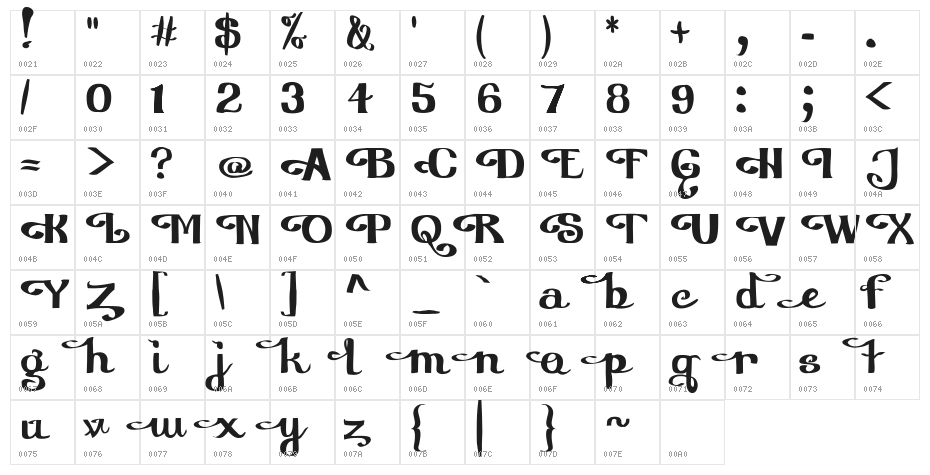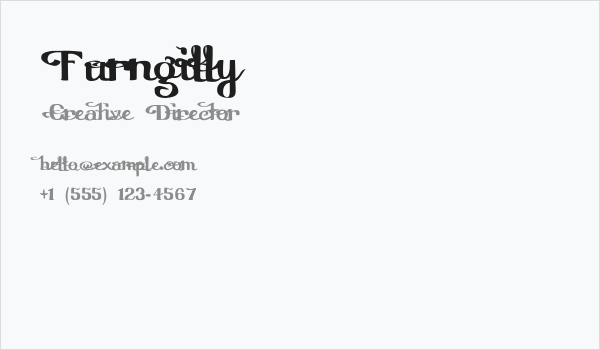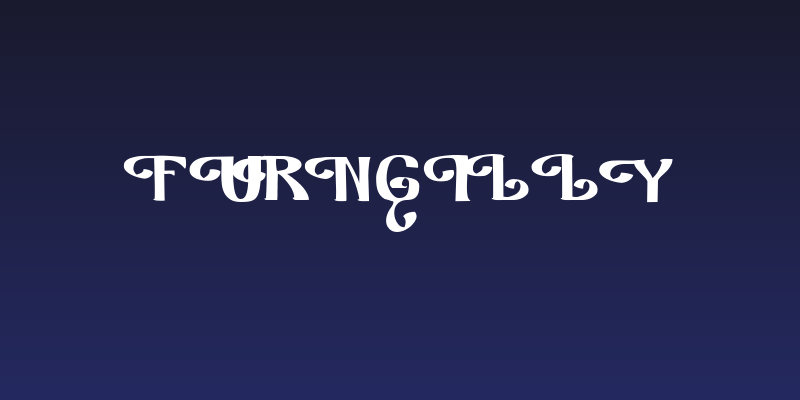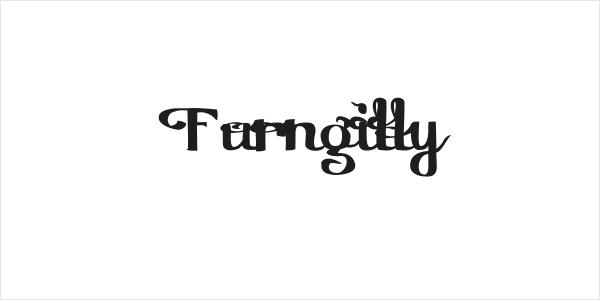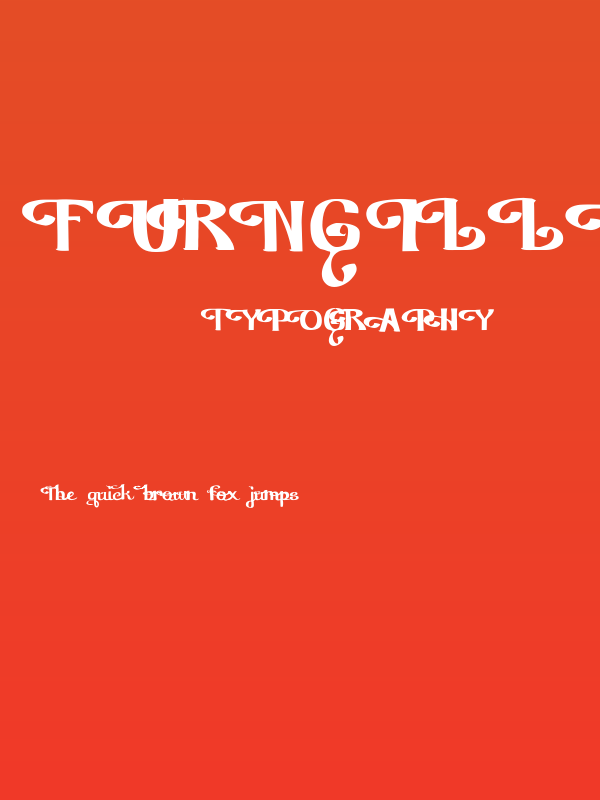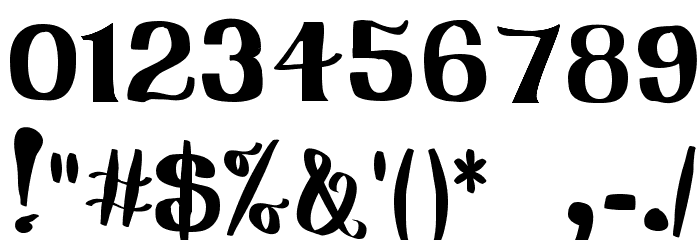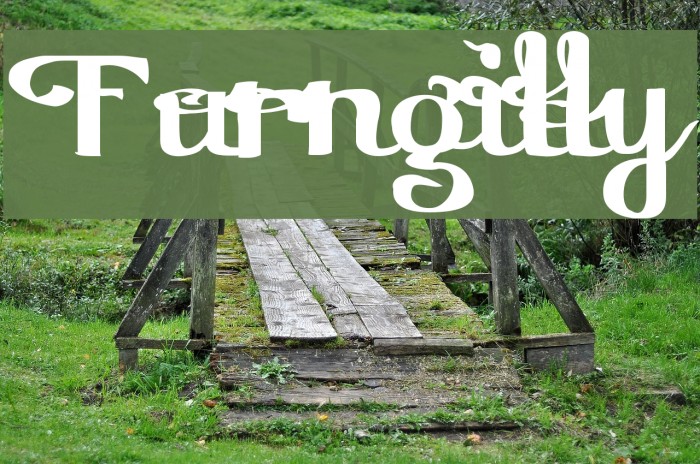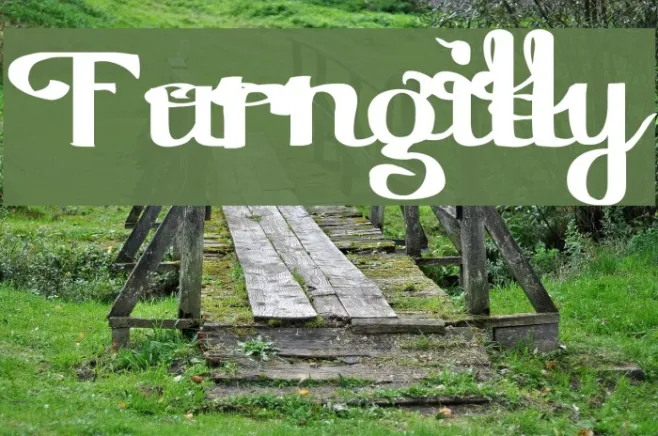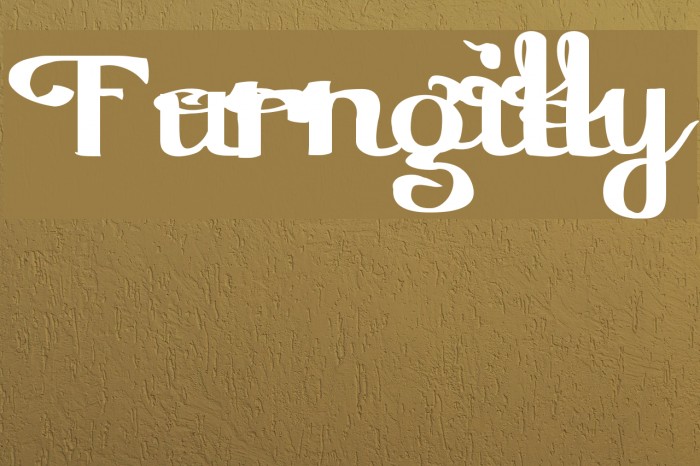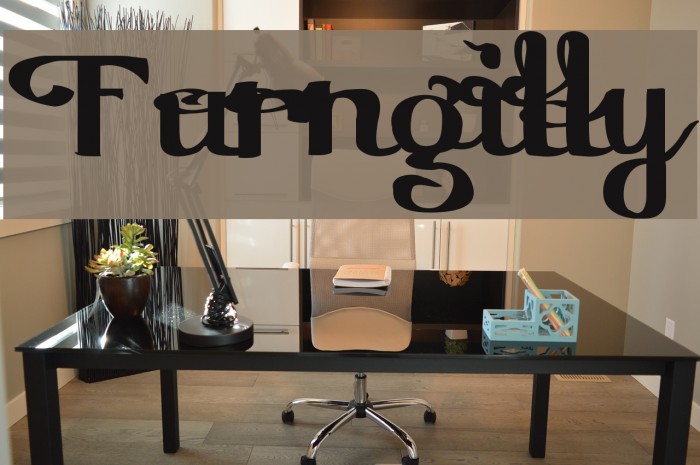
Furngilly Font
Furngilly Description
This font features a highly decorative and ornate style, characterized by intricate swirls and flourishes that extend from the main strokes of each letter. The uppercase letters are particularly elaborate, with each character exhibiting unique embellishments that add a sense of elegance and sophistication. The lowercase letters maintain a consistent style, though they are slightly less adorned, allowing for improved readability. The numerals and special characters follow the same decorative theme, ensuring a cohesive appearance across all glyphs. The font's bold weight and high contrast between thick and thin strokes contribute to its striking visual impact, making it suitable for attention-grabbing designs.
| Proposed Projects | Ideal for wedding invitations, luxury branding, event posters, and decorative headings. |